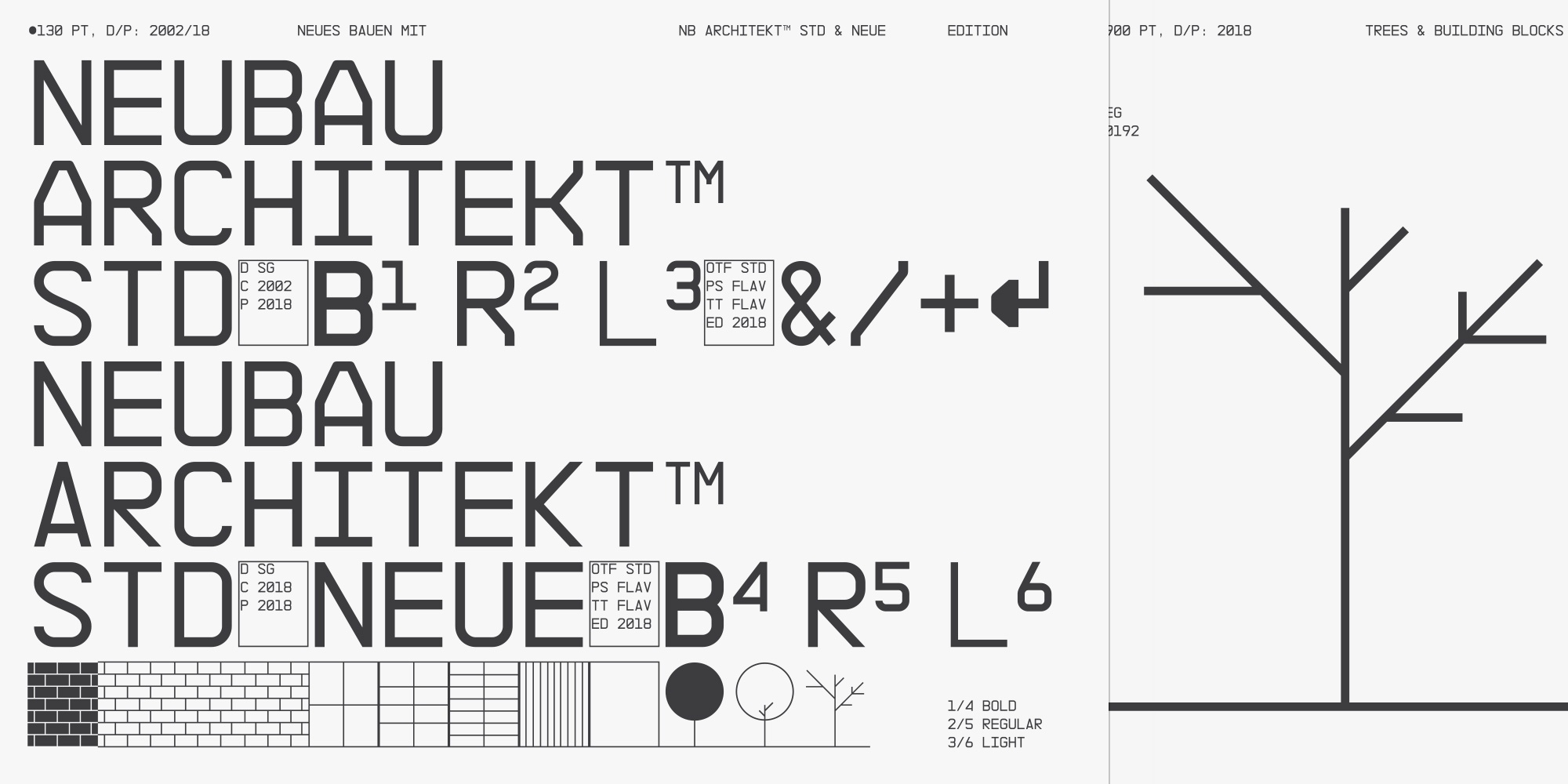
NB Architekt Std Font
NB Architekt Std Font is ideal for architectural blueprints, engineering documentation, construction project presentations, technical drawings, urban planning materials, design firm branding, modern building signage, industrial design portfolios, CAD software interfaces, and professional technical communications.
What makes NB Architekt Std Font so exciting is its precise fusion of technical accuracy and contemporary design sensibility that perfectly captures the essence of modern architectural practice. This meticulously engineered typeface features clean, geometric letterforms with exact proportions and structural clarity that immediately convey professional competence and design sophistication. The font's systematic construction and purposeful aesthetic create an instant sense of technical precision and creative vision, making it ideal for projects that need to communicate complex spatial concepts with both accuracy and visual appeal to diverse professional audiences.
The NB Architekt Std Font family typically includes multiple weights and technical variations, often featuring regular, bold, and condensed styles. Professional architectural font families frequently offer specialized character sets including technical symbols, measurement notations, and drafting-specific elements that support comprehensive documentation requirements and professional presentation standards across international building industry applications.
The technical precision of NB Architekt Std Font makes it particularly effective for digital platforms where clarity and professional presentation are essential for project approval and client confidence. Architecture firms and engineering consultancies will find this font especially valuable for proposals and presentations that require immediate recognition of expertise and attention to detail.
What sets NB Architekt Std Font apart is its ability to convey both technical mastery and creative vision simultaneously. This unique characteristic makes it suitable for communications ranging from detailed technical specifications to inspirational design concepts where bridging analytical and aesthetic considerations is crucial.
Professional designers recognize that NB Architekt Std Font brings invaluable architectural credibility to projects across industries including construction, real estate, urban planning, and industrial design. Its technical character and professional appeal make it indispensable for organizations requiring immediate recognition of engineering competence and design excellence.
The systematic design principles of NB Architekt Std Font ensure consistent performance across complex technical documentation and high-stakes professional presentations.